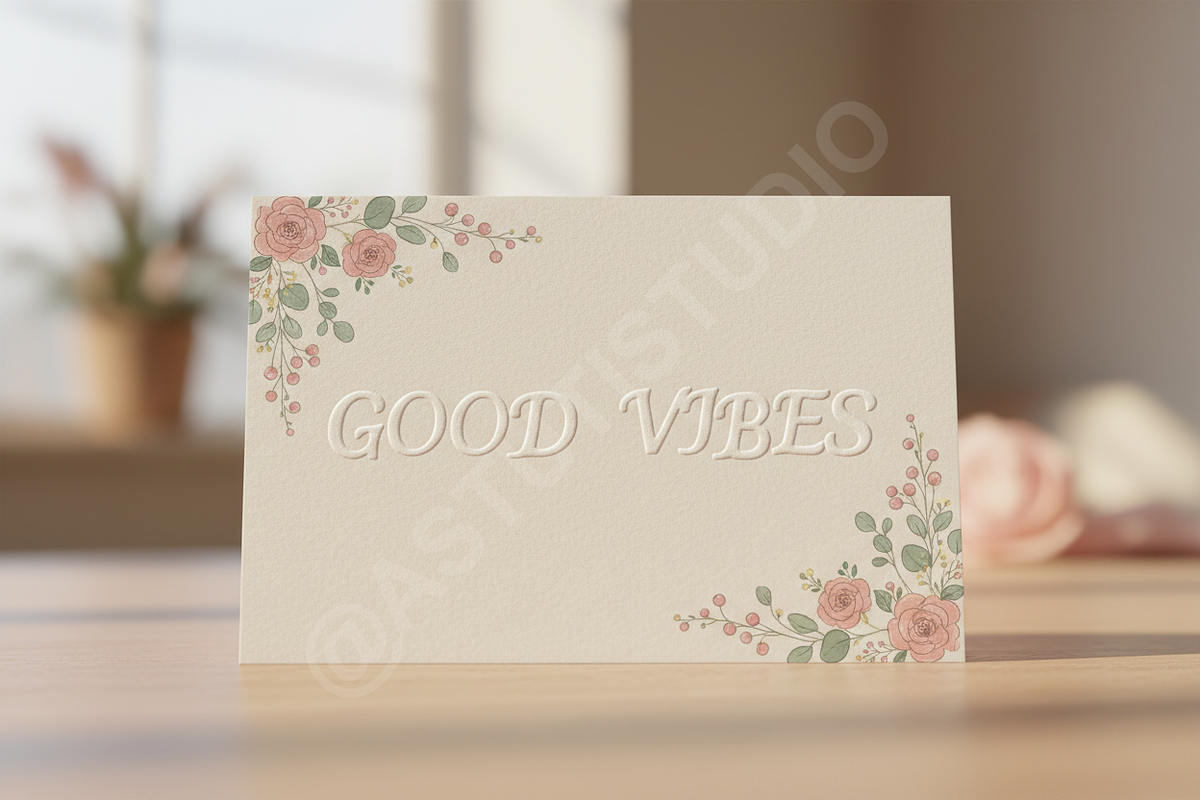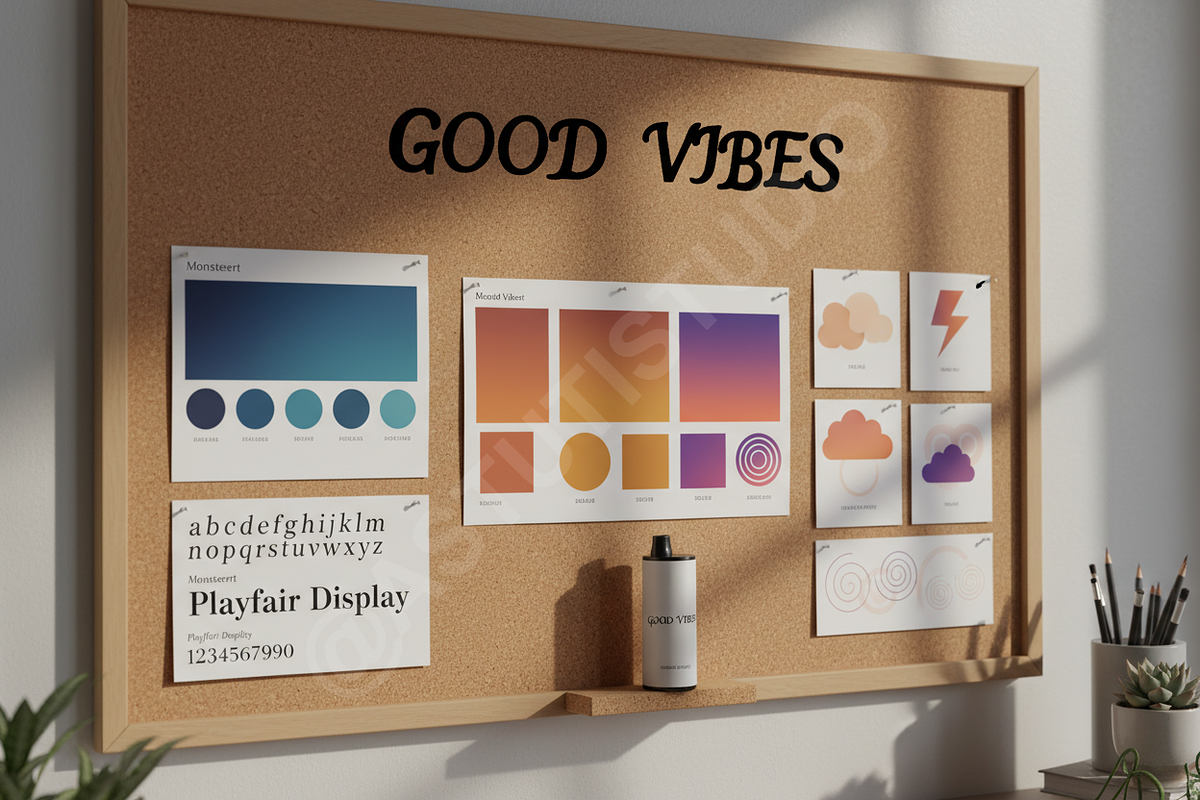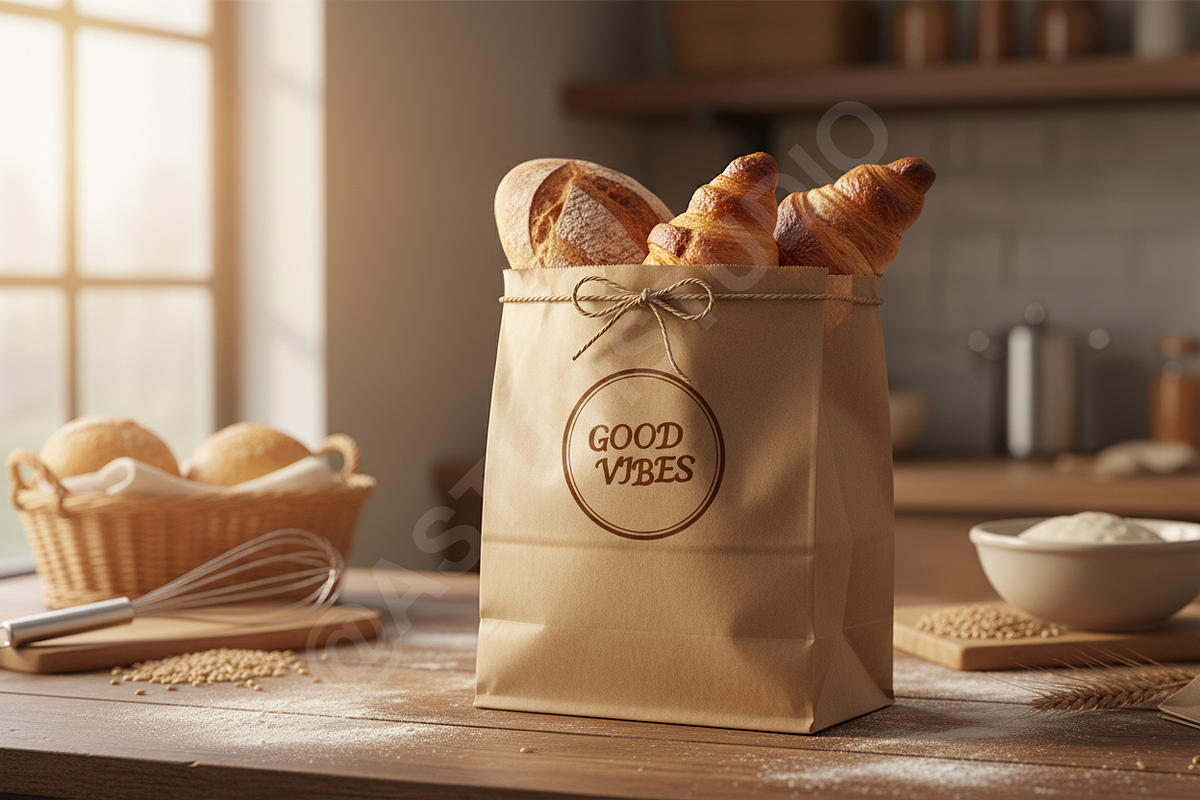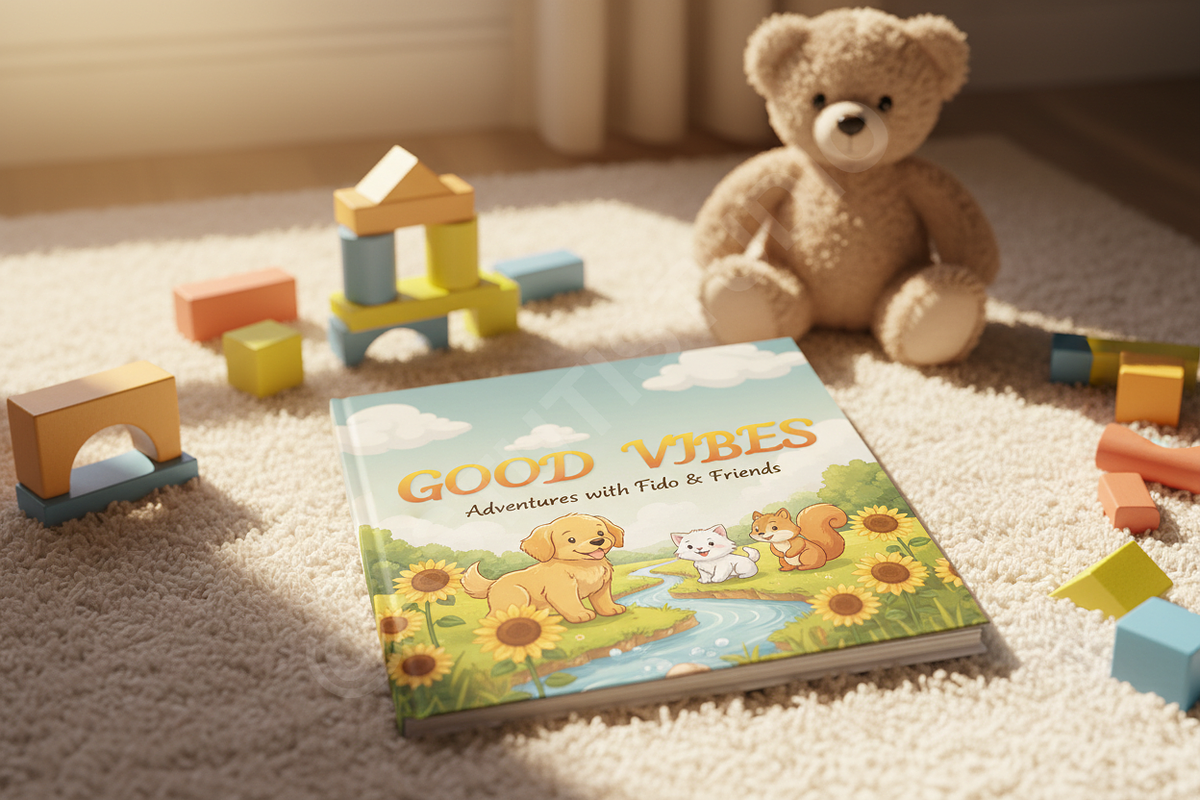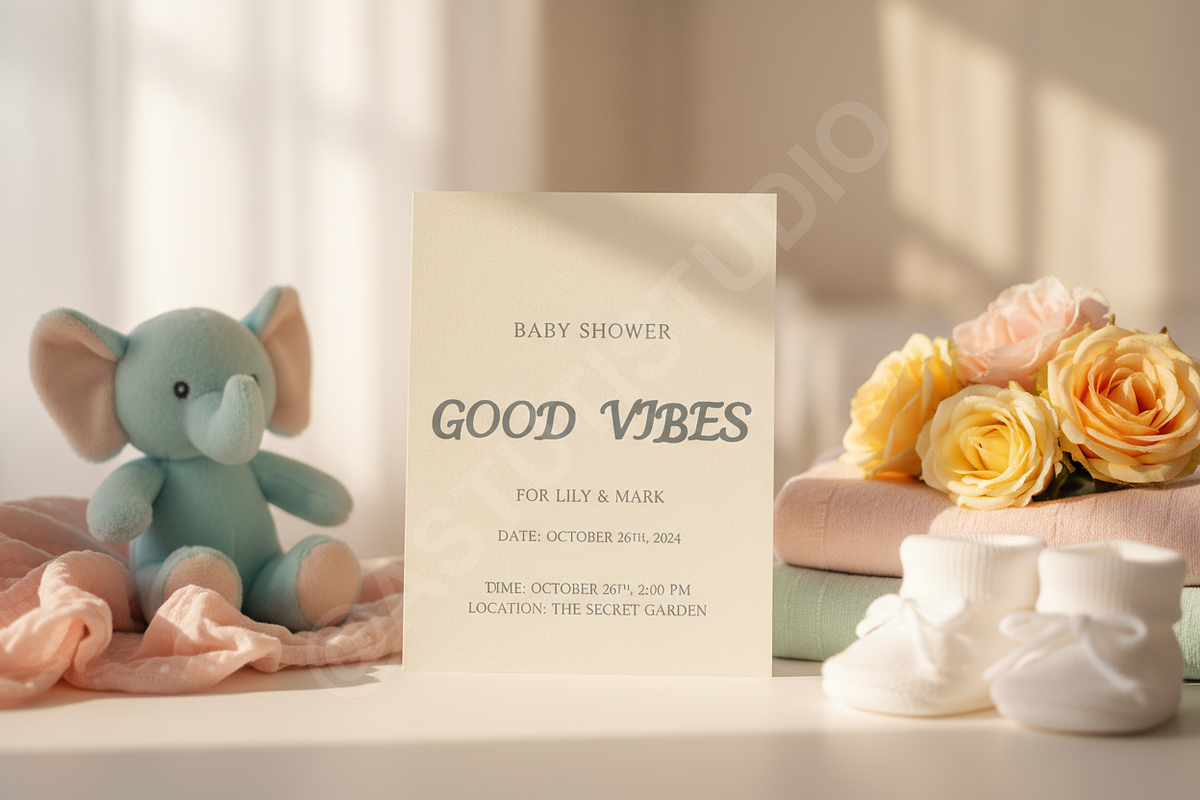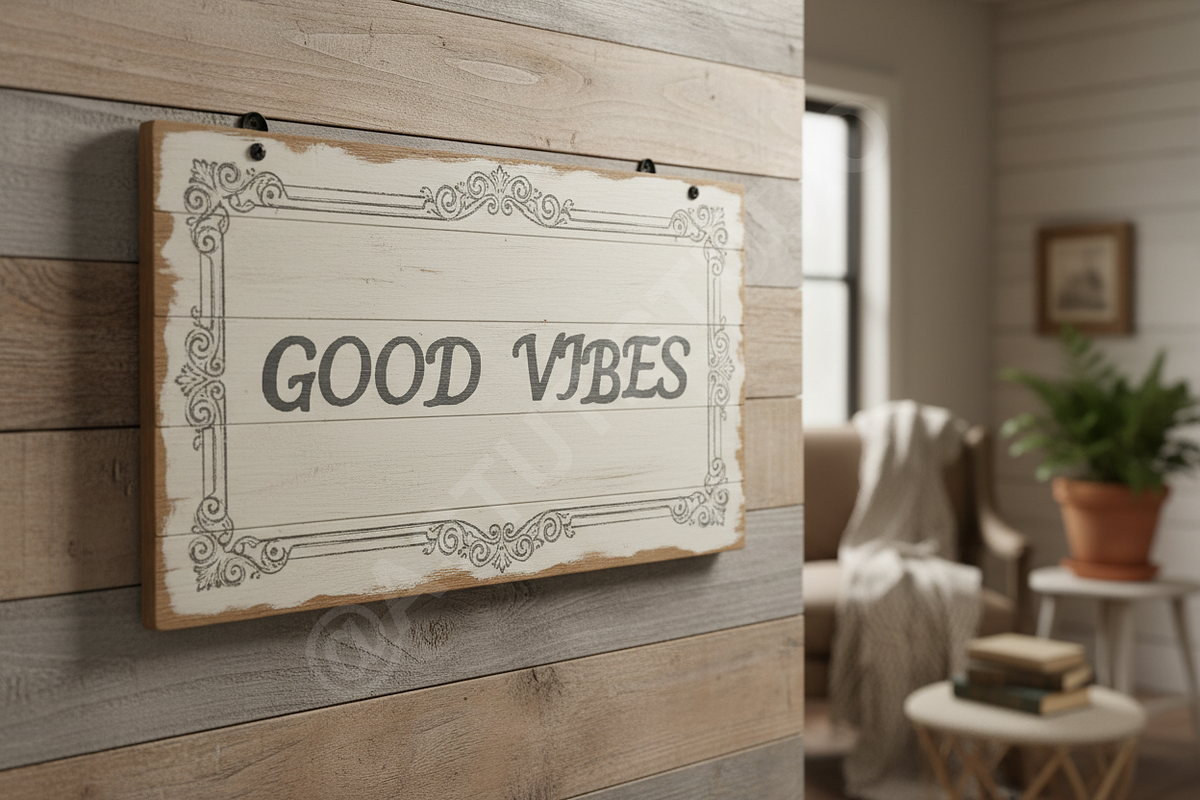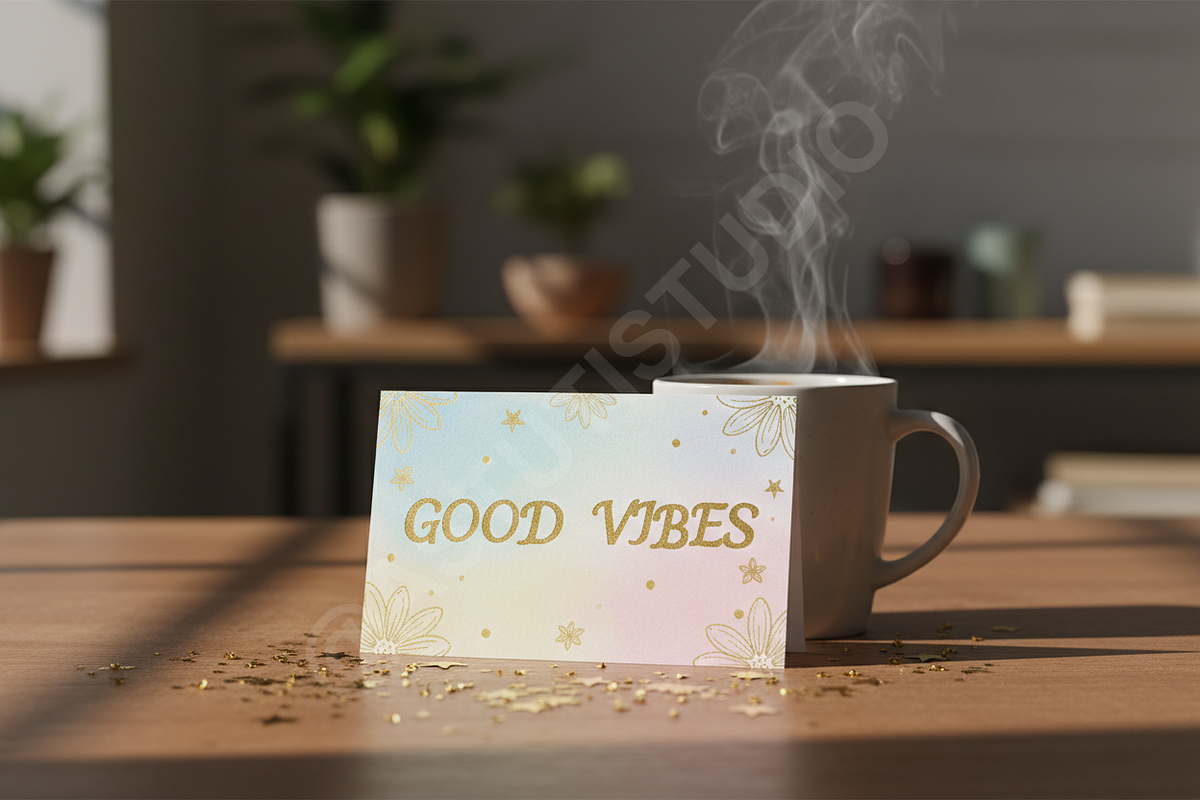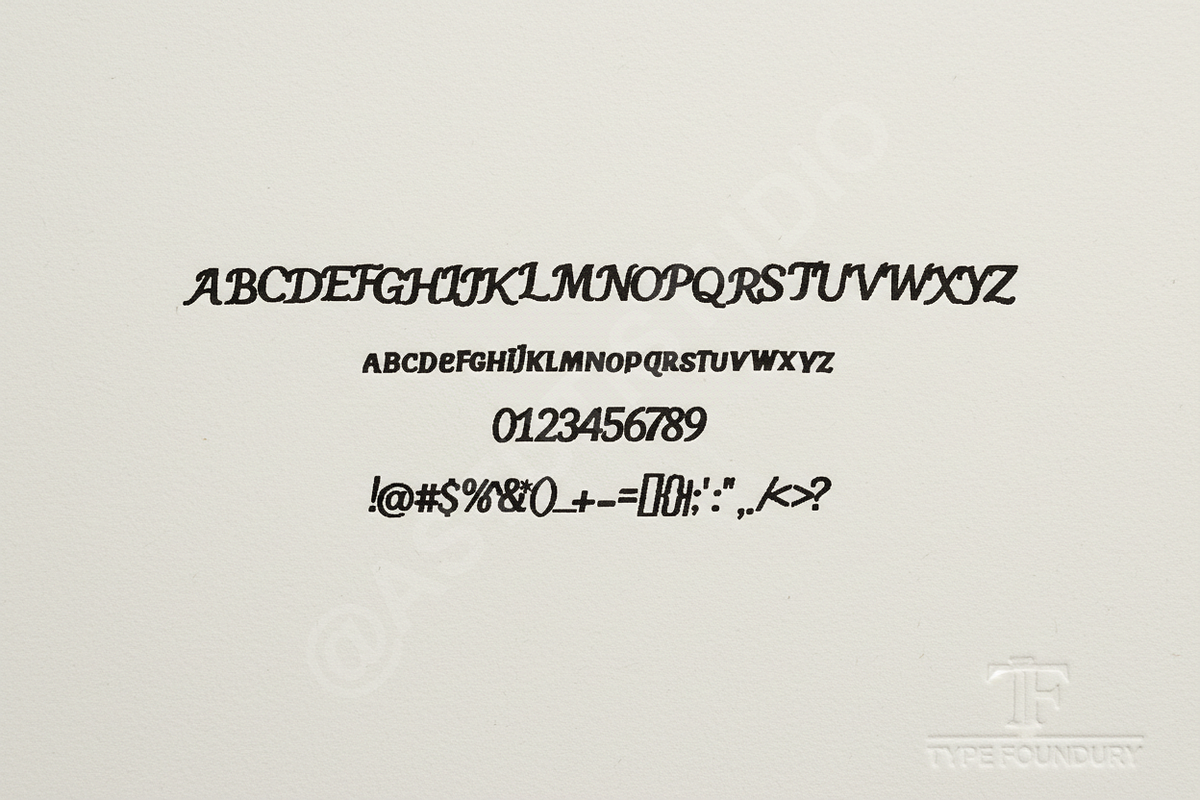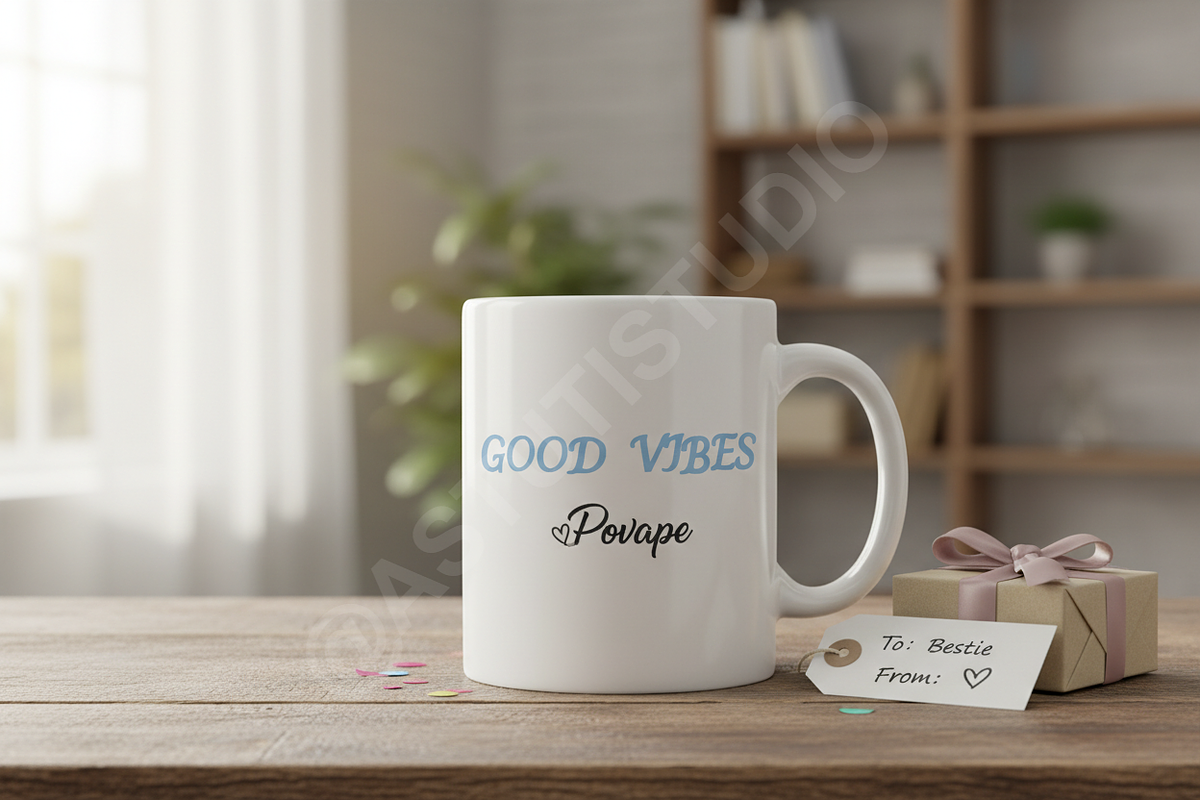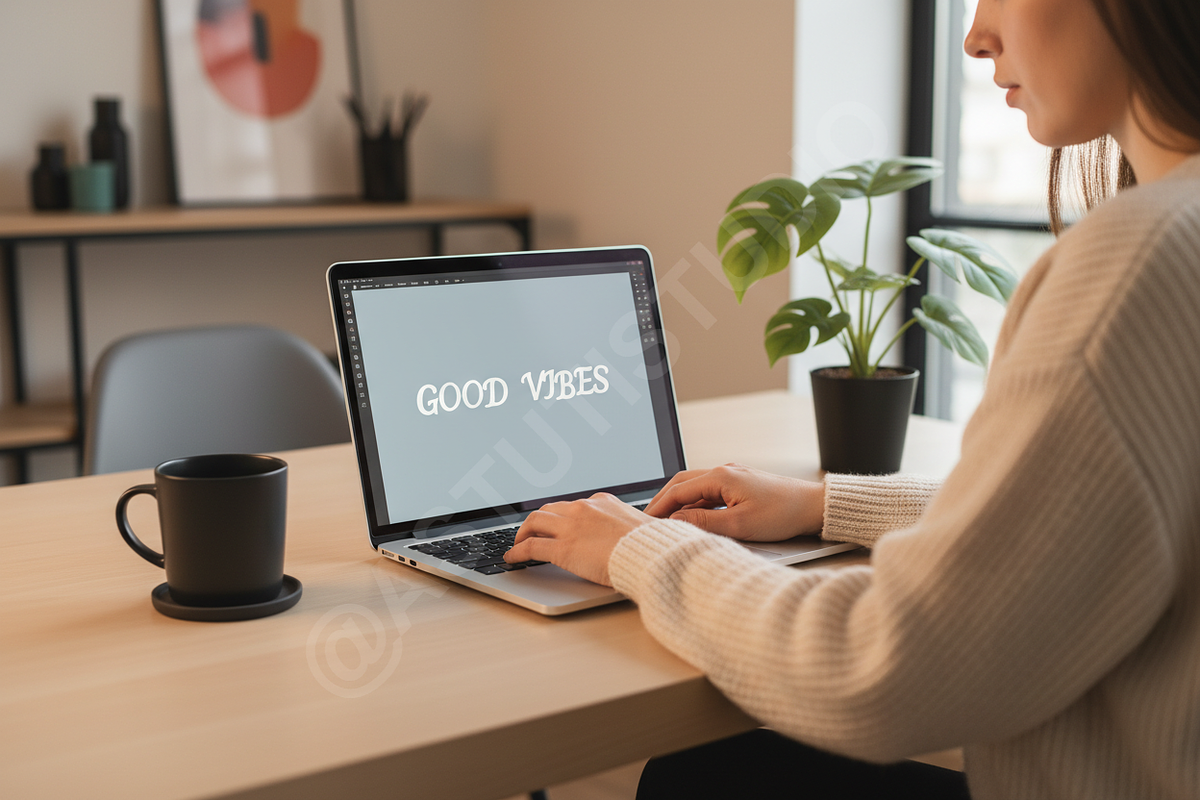
Povape - Elegant Editorial Serif Ty
INTRODUCTION
Povape is a sophisticated serif typeface meticulously crafted for the modern creative studio. With its refined curves and high-contrast strokes, Povape embodies timeless elegance and contemporary luxury. It is designed to bring a sense of prestige and clarity to any visual composition, making it an essential tool for designers seeking a premium aesthetic.
- Elegant high-contrast serif design
- Extensive multilingual support for global reach
- Advanced OpenType features including unique ligatures and alternates
- Precision-kerning for a professional finish
- Optimized for both high-resolution print and digital displays
- Full character set: Uppercase, Lowercase, Numbers, and Punctuation
PERFECT FOR
This typeface is the ideal choice for luxury branding, high-end editorial design, minimalist social media aesthetics, boutique packaging, and sophisticated wedding invitations.